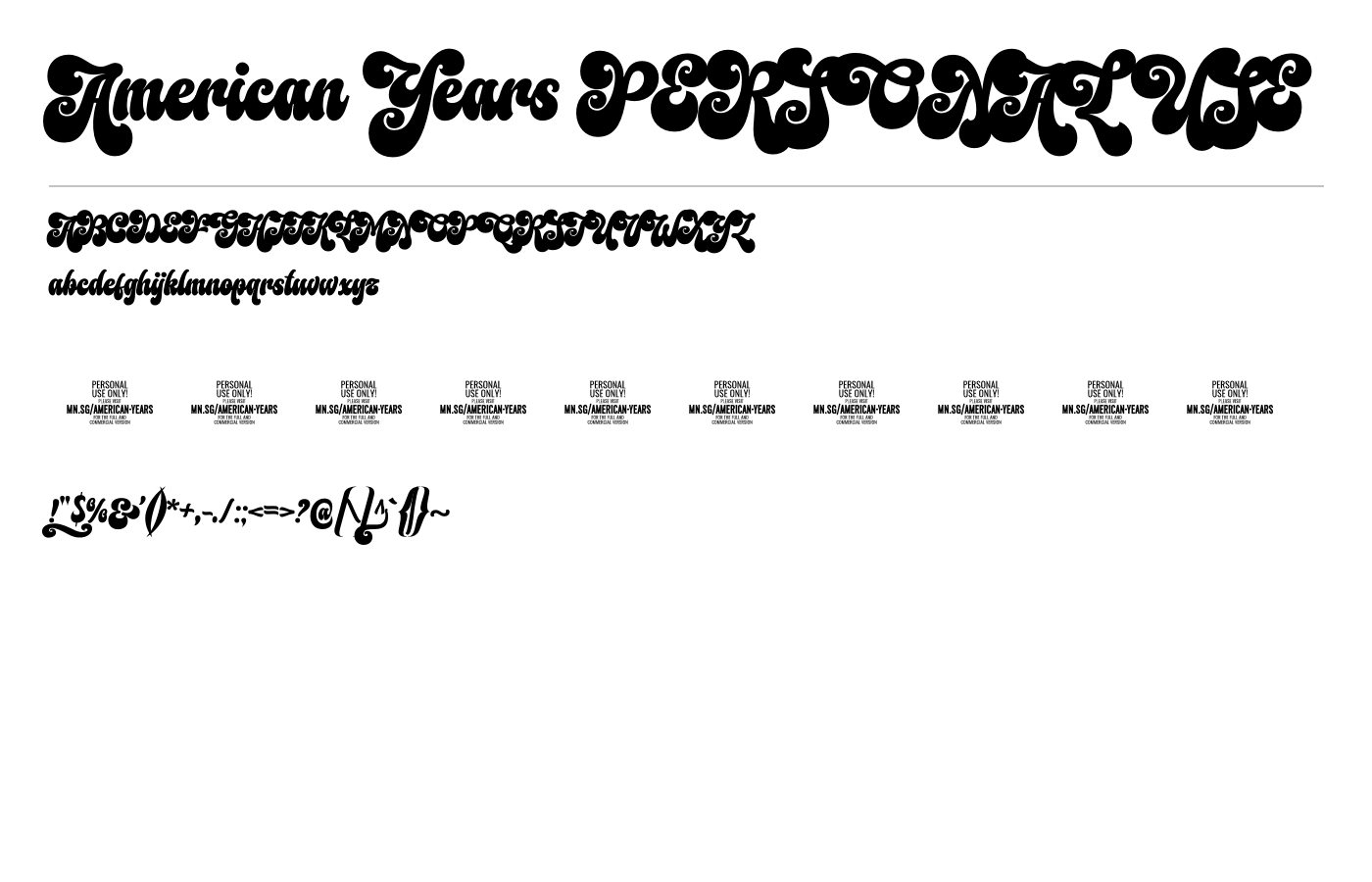
American Years is a bold, decorative script font with a playful and retro vibe, featuring thick, swirling strokes and dramatic curves that give it a unique, eye-catching personality. Its high contrast and ornamental letterforms make it ideal for vintage-inspired branding, posters, and headlines where a fun, artistic touch is desired. This font works best in display settings where its intricate style can truly stand out and captivate attention.
American Years PERSONAL USE Font
About American Years PERSONAL USE Font